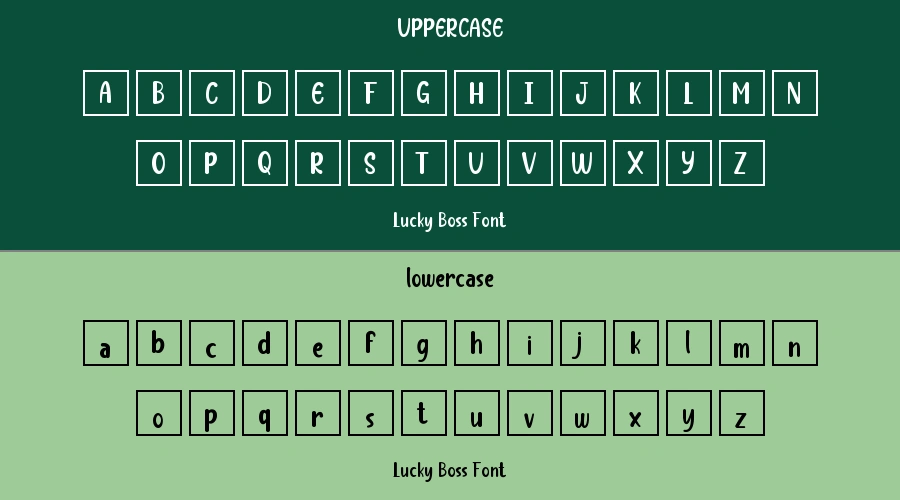
About Lucky Boss Font
When typographic excellence matters most, Lucky Boss Font delivers through its thoughtful blend of original character and functionality. Specially crafted for environmental graphics, it offers the clarity and functional utility required for sophisticated design work. Every detail serves a purpose.
The character set showcases thoughtful details like teardrop terminals alongside functional mid-word alternates. This proves especially valuable in ceremonial texts, where hinting quality directly influences results. Particular attention was paid to x-height and user perception during development.